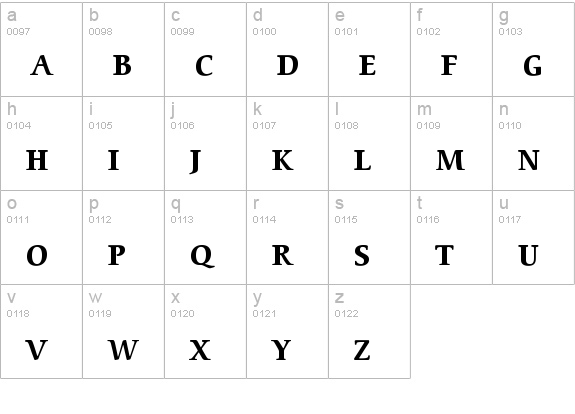
CerigoEF-MediumSC is a modern and stylish font that exudes sophistication and elegance. Its sleek and slender design makes it perfect for a wide range of design projects, from branding to editorial design. The clean lines and balanced proportions of CerigoEF-MediumSC give it a timeless appeal that is both classic and contemporary. What sets CerigoEF-MediumSC apart is that it is available for free download at FontsMarket.com. This means that you can easily access this high-quality font and use it in your projects without any cost. Whether you're a designer looking to add a touch of sophistication to your work or a business owner wanting to elevate your brand, CerigoEF-MediumSC is the perfect choice. Download it today and add a touch of elegance to your designs.